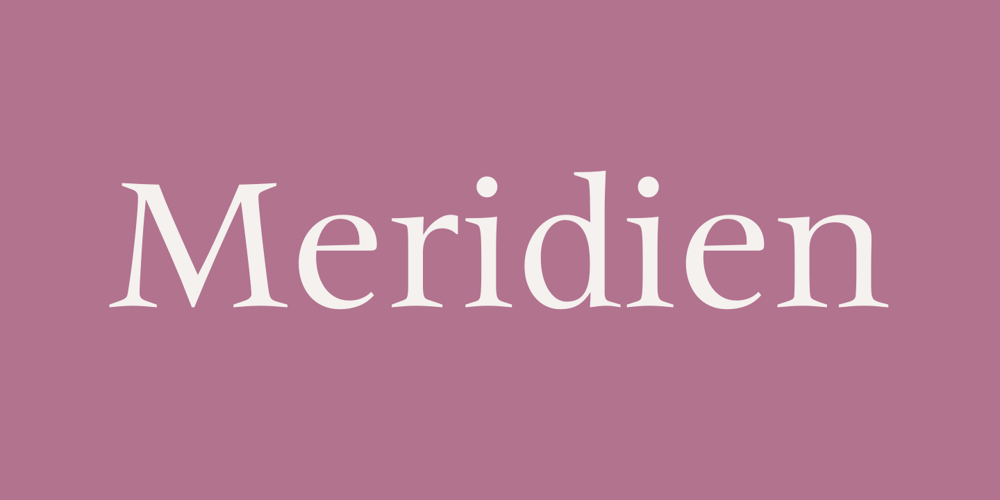
Meridien
Meridien font
Meridien Font Family was designed by Adrian Frutiger and published by Linotype. Meridien contains 6 styles and family package options. Frutiger based the design for his Meridien on the 16th century characters of Jenson, saying: As I designed Meridien, I wanted to avoid stiffness in the forms – I thought they should have a more natural line and flow. My main consideration was in creating a font which was both extremely legible and aesthetically pleasing. Meridien is proof of Frutiger’s success in his endeavor.